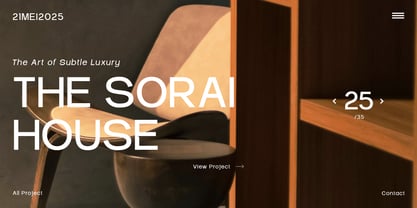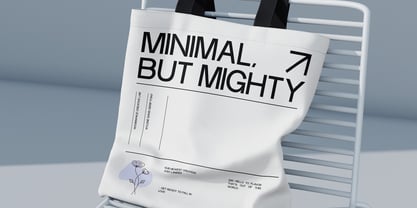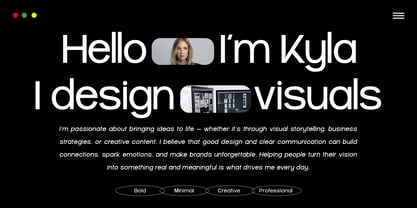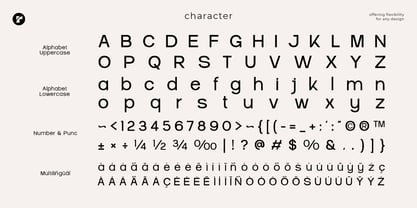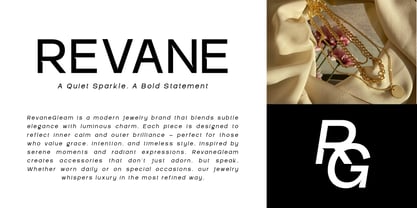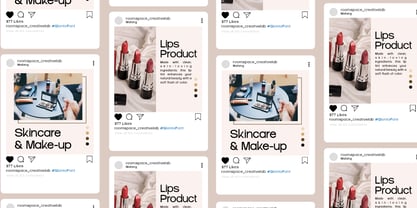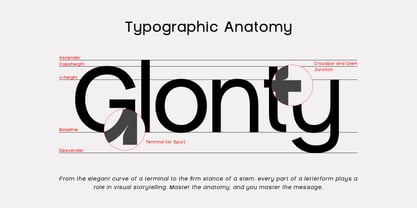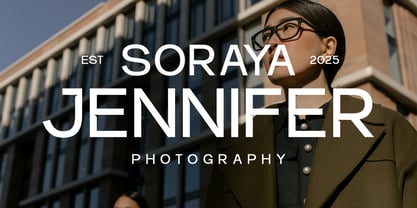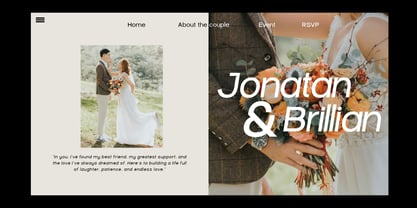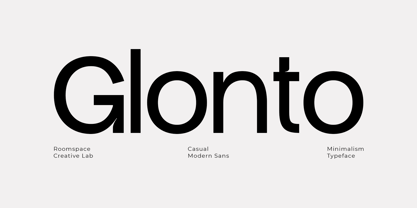
Glonto
by Jafar07
The Glonto Font Family was designed by Bakhrudin Ja'far and published by Jafar07. Glonto contains 2 styles and family package options. More about this family
Glonto is a sleek and contemporary sans serif typeface that embodies simplicity and sophistication. Ideal for a variety of applications—including branding, user interface design, and editorial projects—Glonto provides a polished and fresh appearance, ensuring your designs make a lasting impression. Its carefully crafted proportions and sharp lines promote outstanding readability while exuding a modern flair. This adaptable font is perfect for creating impactful logos, engaging headlines, vibrant posters, and rich digital as well as print materials.
Designers: Bakhrudin Ja'far
Foundry: Jafar07